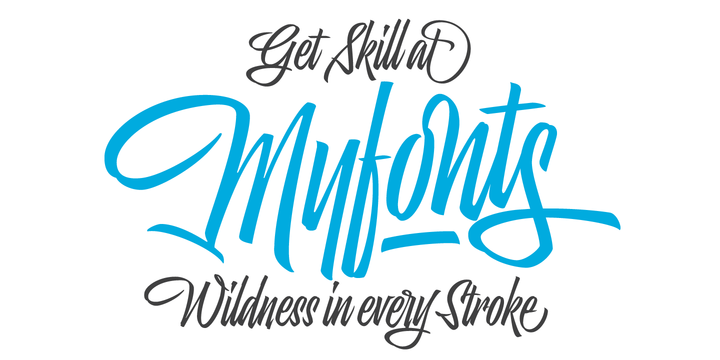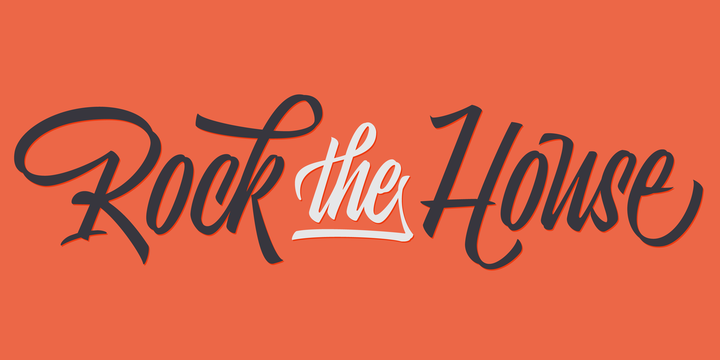
Skill
Skill Script Font
With Skill I wanted to create something wild. Something that splashed the letters with life. To do this, I knew I’d have to break the barrier between analog and digital, so I took my best brush and started to play.